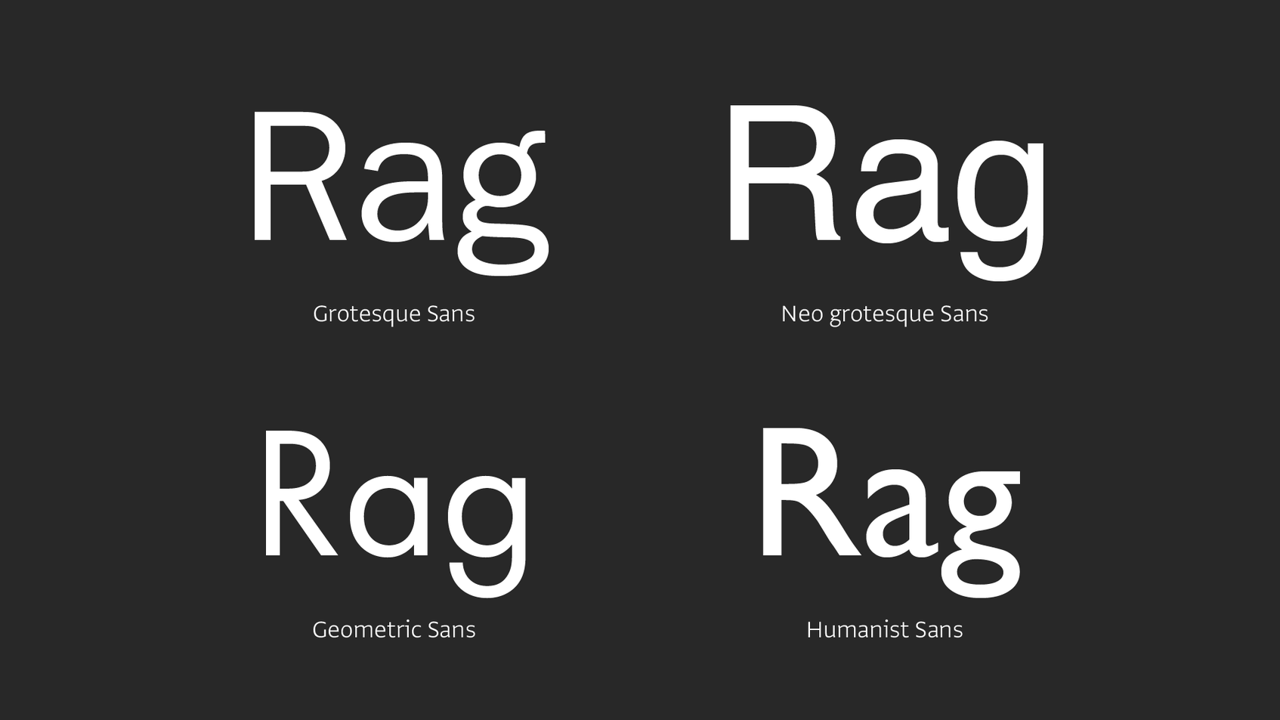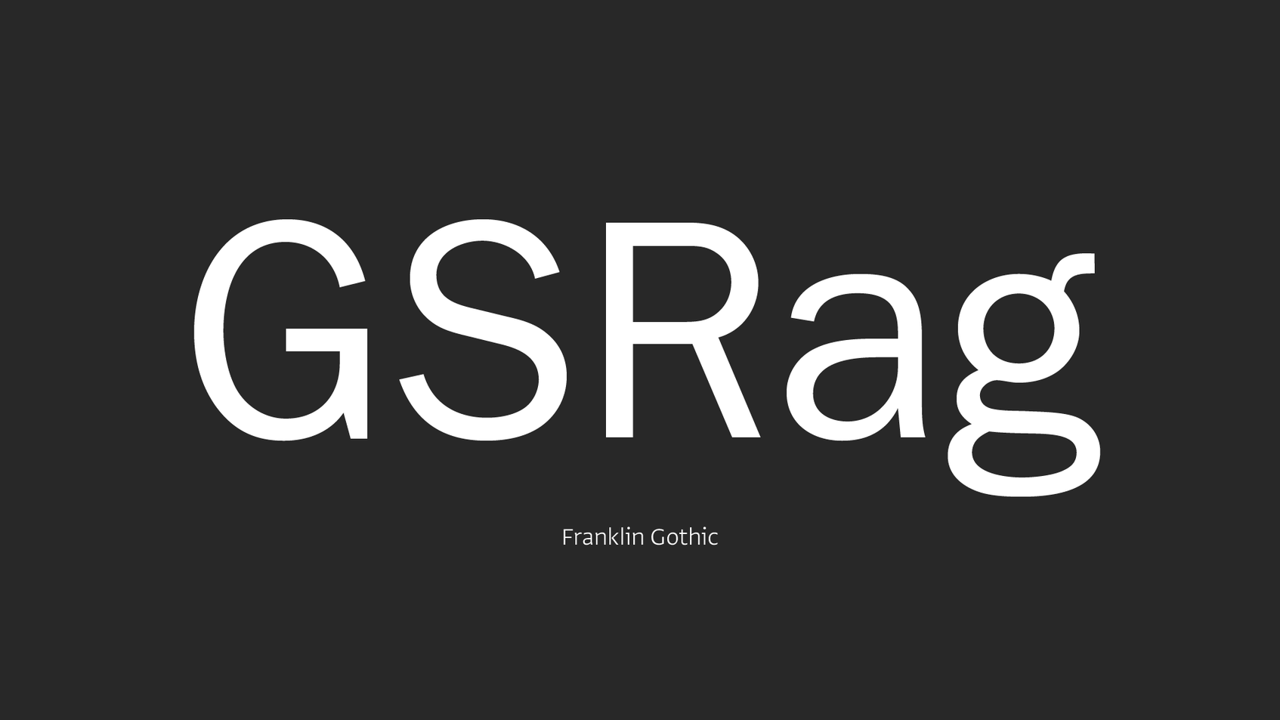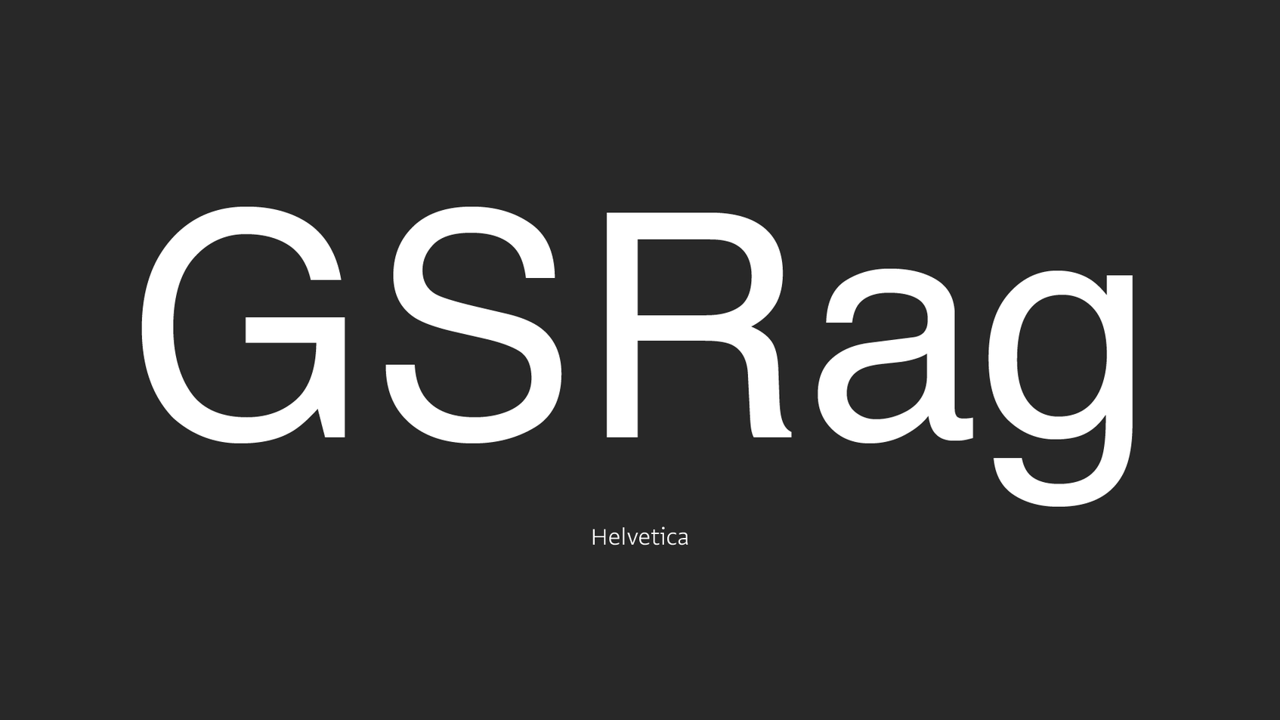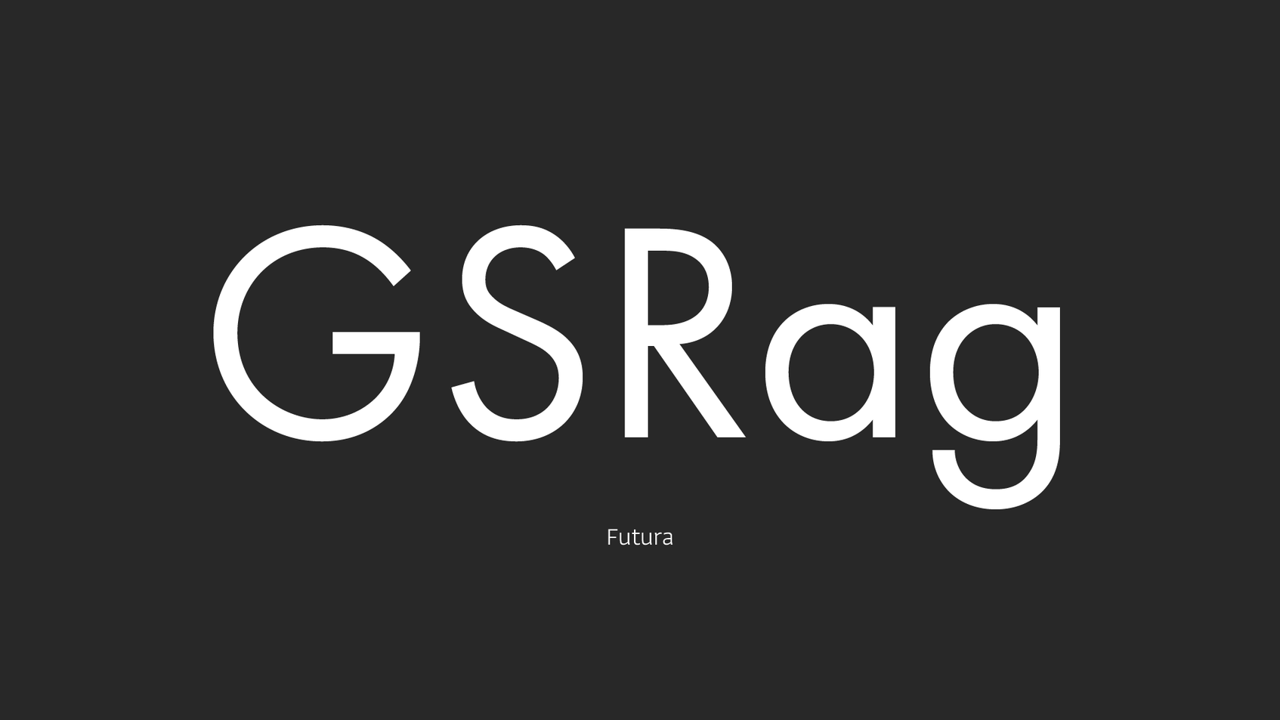
Serif, Sans, Myeongjo, Gothic, and Serifs
Have you ever found yourself saying “that thing” when a name just won’t come to mind? It’s the kind of placeholder you use when you can’t immediately recall what to call a person or an object.
You’ve probably had this moment: walking past a sign, a friend asks, “Hey, what do you call the font on that sign?” and you reply, “Oh, that thing—that thing, you know. Is it Myeongjo or something?” while desperately trying to remember what that thing actually is.
Why We Need to Know Terms—As Precisely as Possible
Do we really know the exact meanings and origins of the words we use? Most people probably don’t. Even so, communication usually isn’t difficult, because we share the same culture, daily experiences, and context. That shared context allows conversation to flow even when we use words imprecisely or choose the wrong term. It’s the same reason conversations flow easily with friends we’ve known for a long time, but feel less smooth with elders who are far apart from us in age.
Unlike everyday language, the language used in work or education includes not only common words but also technical terms. Technical terms can, of course, be explained in plain language, but they exist to make communication more efficient. That is why, when learning anything new, we start by learning the terminology. Without an understanding of technical terms, communication becomes difficult and misunderstandings can arise. Doctors explain conditions to patients using simple terms like colds or stomachaches, but when communicating with nurses or pharmacists, they write diagnoses in unfamiliar shorthand—because those situations require more precise and specific communication.
All of this leads to the purpose of this article: to explain the exact meanings and origins of font-related terms, especially those used to classify fonts. You may joke with friends and call something “that thing,” but when the moment calls for it, we hope you’ll be able to say with confidence, “This font belongs to the serif category.”
Serif
A serif refers to the protruding elements at the ends of strokes. Whatever the character, its form is influenced by the writing tools used to create it. In the past, many believed that serifs originated as marks left at the ends of strokes when letters were carved into inscriptions with a chisel. More recently, however, a more convincing view has emerged: that serifs originated as natural edges formed along the thin side of a flat brush as letters were drawn. As the saying goes, the history of type is the history of serifs—serifs are among the elements that most clearly express a letter’s character. We won’t cover the full origin story of serifs here today; for now, it’s enough to clearly understand what the term serif refers to.
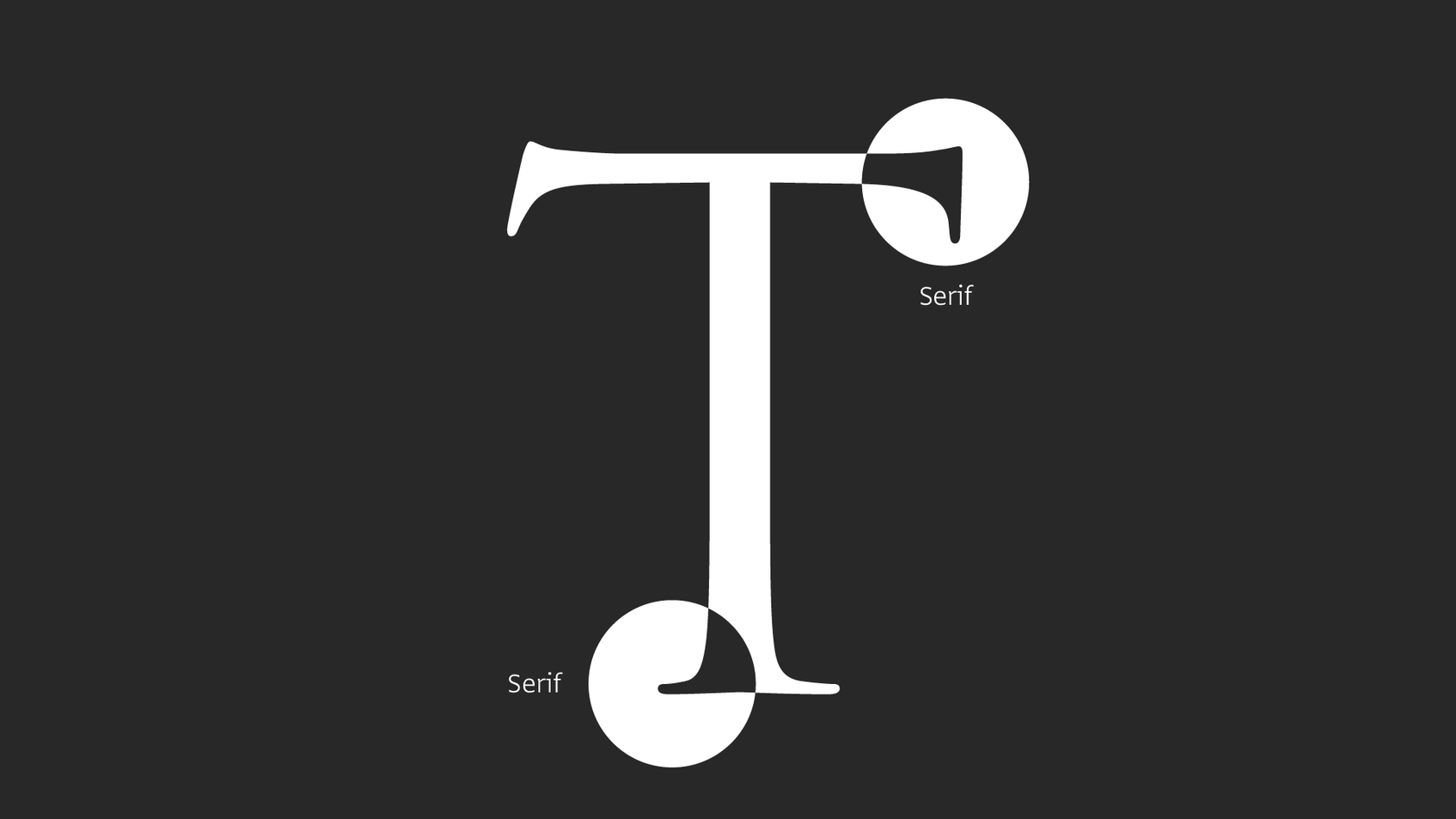
Serifs of Trajan
*Trajan is a font based on the letterforms carved into the inscription at the base of Trajan’s Column in Rome.
Typefaces with serifs are referred to as the “serif category.” They are often casually called simply “serif” or “serif fonts,” but in this article, we will use “serif category” to clearly distinguish the category from the serif itself.
The serif category can be broadly divided into four types, based on the shape of the serifs and the detailed characteristics of the letterforms: Old Style, Didone, Transitional, and Slab Serif.
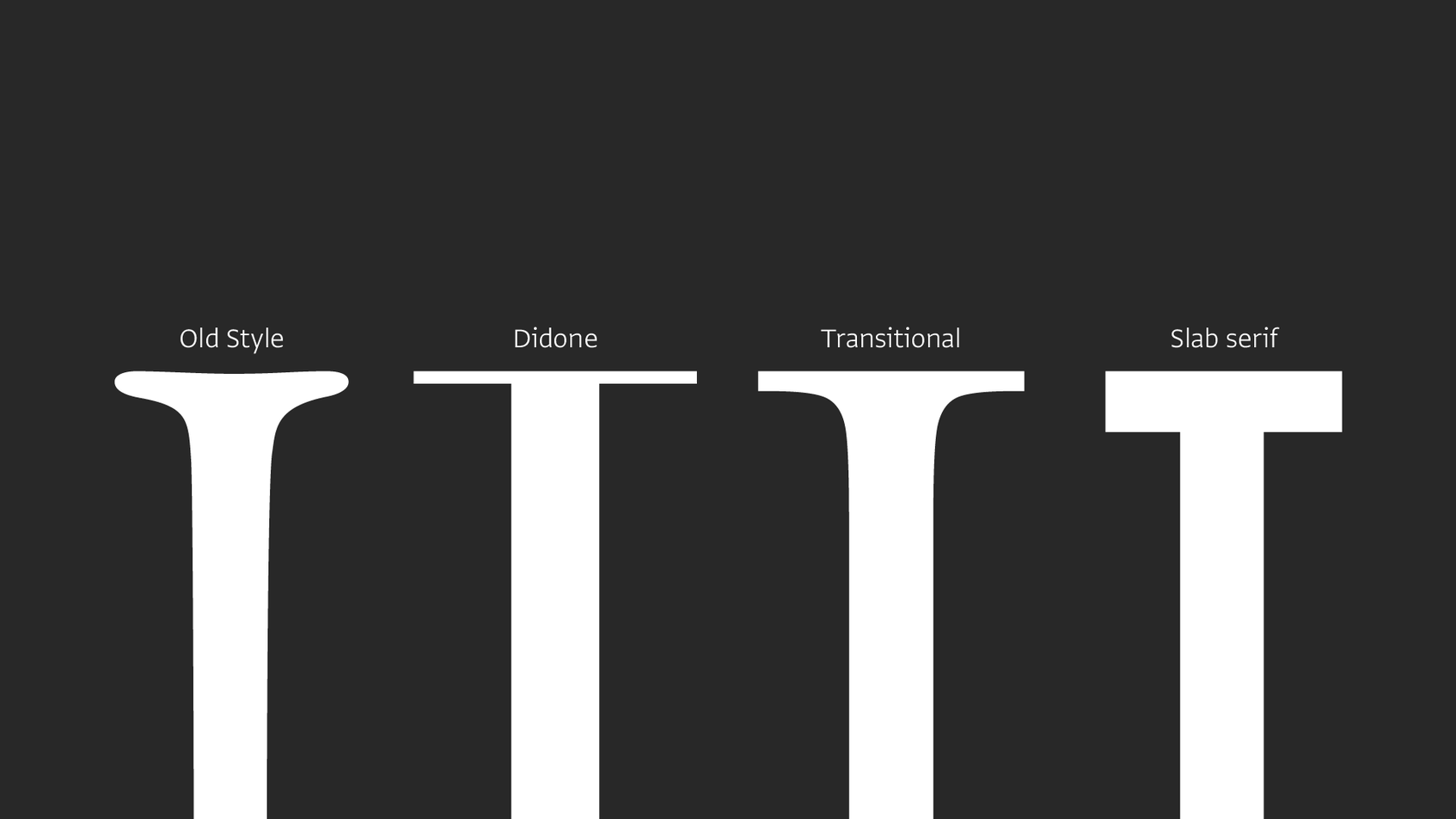
Serif forms category
First, Old Style typefaces are influenced by Renaissance calligraphy. They are characterized by a diagonal axis of stroke contrast—similar to writing with a fountain pen—and softly connected brackets*. Well-known examples include Garamond and Caslon.
*Bracket: the curved connection where a serif meets the main stroke.
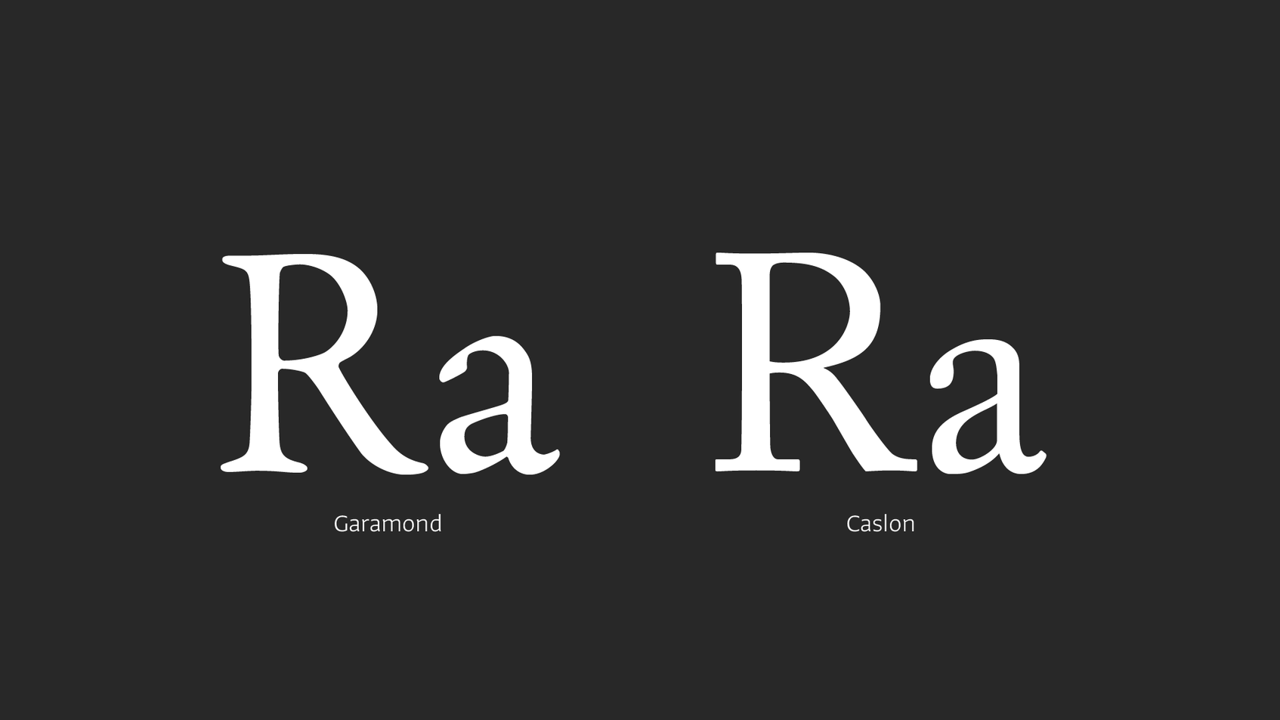
Didone typefaces are characterized by extreme contrast between horizontal and vertical strokes, with a vertical axis of stroke contrast. Their clean, sharply defined appearance is why they are sometimes referred to as a “modern style.” Well-known examples of the Didone category include Didot and Bodoni. Did you notice? The term “Didone” is a portmanteau of Didot and Bodoni. Both typefaces continue to be widely used and loved today, especially in fashion and magazine design.
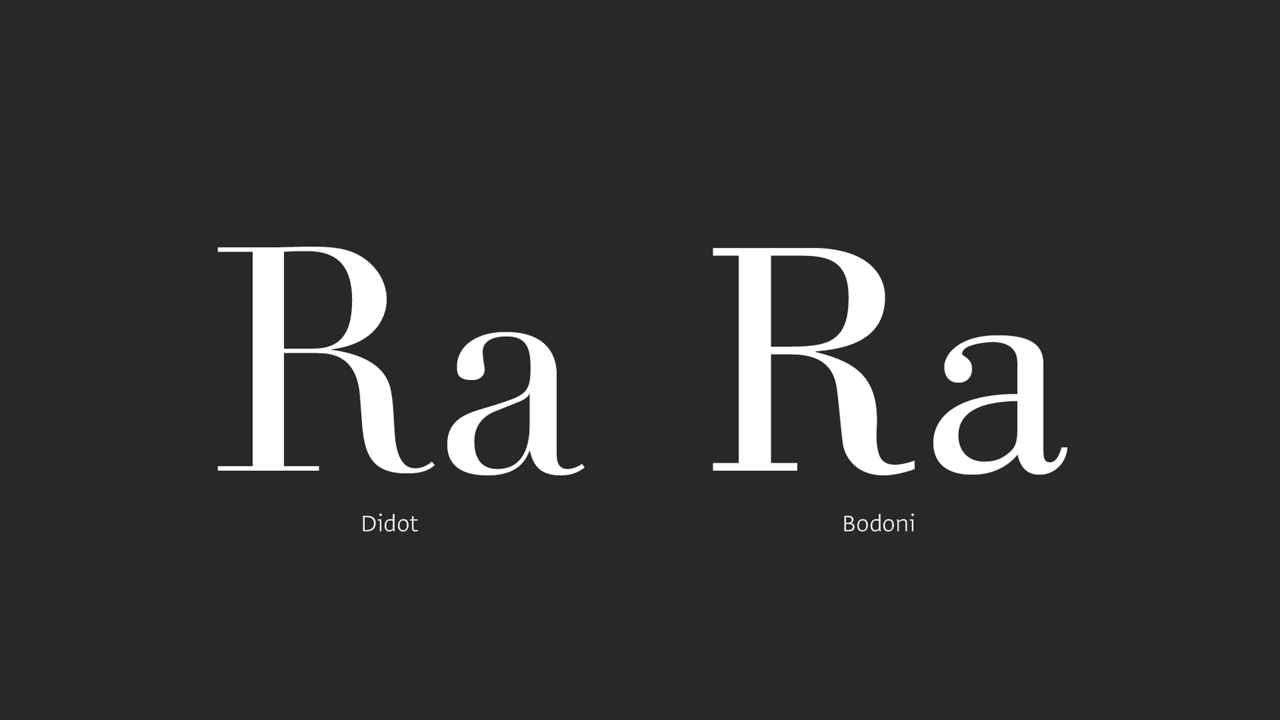
Next, Transitional typefaces can be thought of as a midpoint between Old Style and Didone. The axis of stroke contrast is not fully vertical, but it is also not as slanted as in Old Style. The contrast between horizontal and vertical strokes is stronger than in Old Style, and the serifs and brackets are more refined and orderly. Representative examples include Baskerville and Times New Roman.
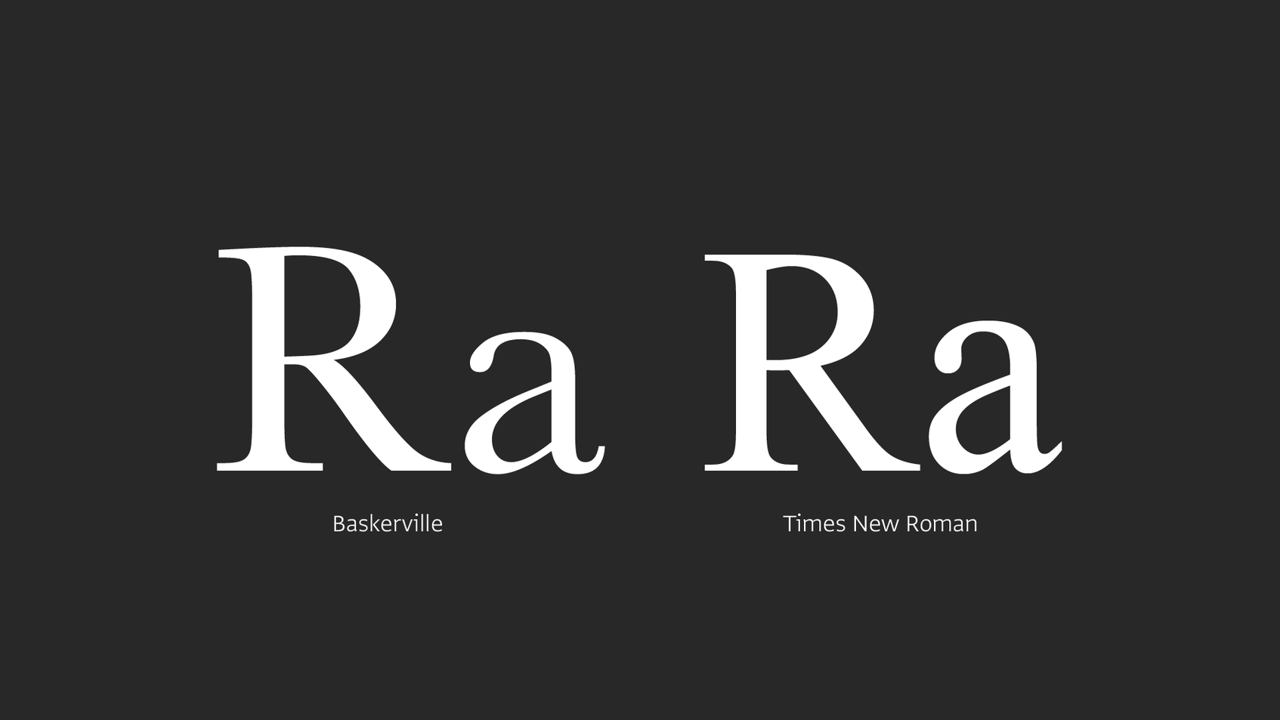
Lastly, there is Slab Serif. Compared to other categories, slab serifs are characterized by exaggeratedly large serifs and the absence of brackets. If you remove the serifs from a slab serif, it can look almost indistinguishable from a sans serif, as many of the typical serif characteristics are stripped down. Representative slab serif typefaces include Memphis and Rockwell, which are commonly used for headlines.
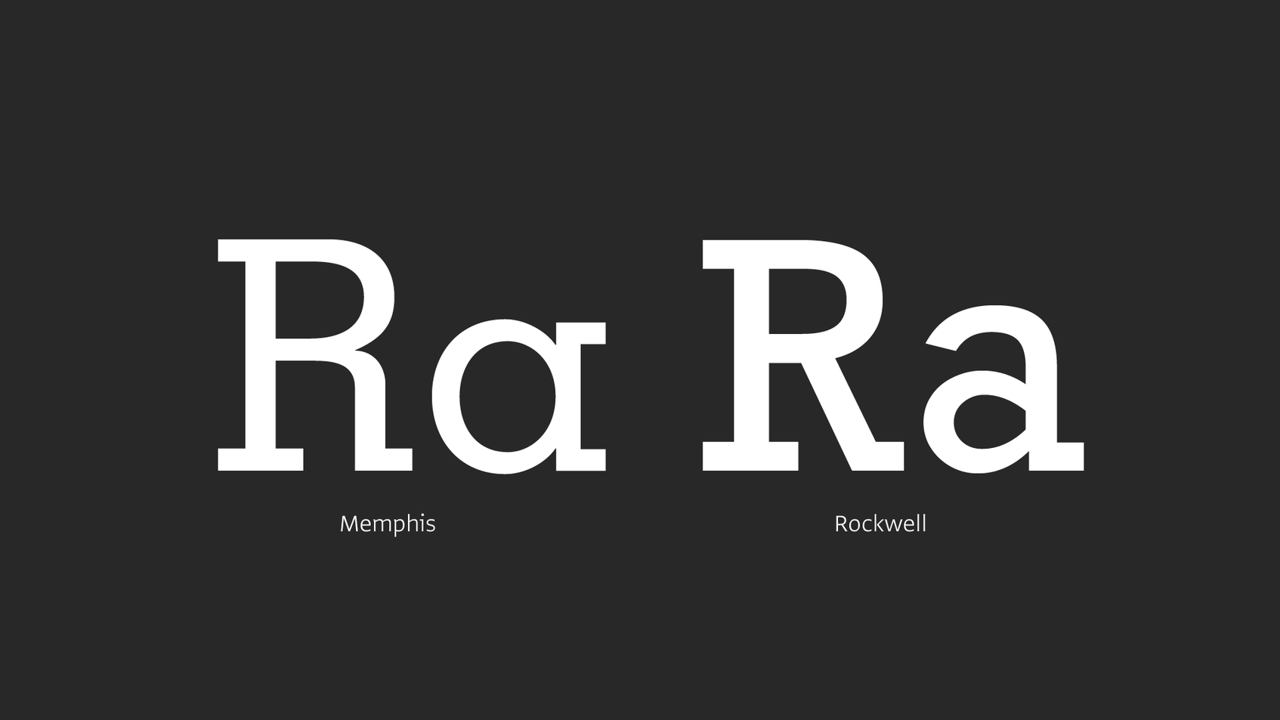
There are many ways to further subdivide the serif category. These include the Vox classification, once adopted by ATypI (Association Typographique Internationale); the classification by Aldo Novarese**, which divides typefaces into ten categories based on serif forms; and the system by Jean Antoine Alessandrini**, which offers a more detailed classification of nineteen categories. In this article, however, we have chosen to use four terms that are commonly used in Korea, for the sake of clarity and simplicity.